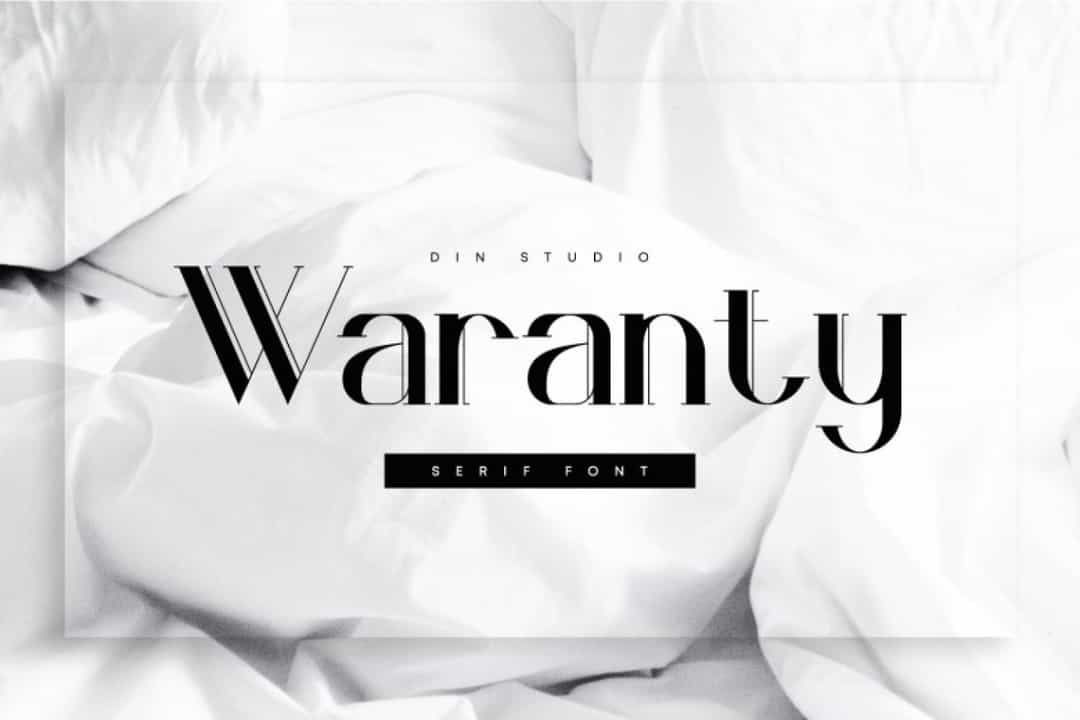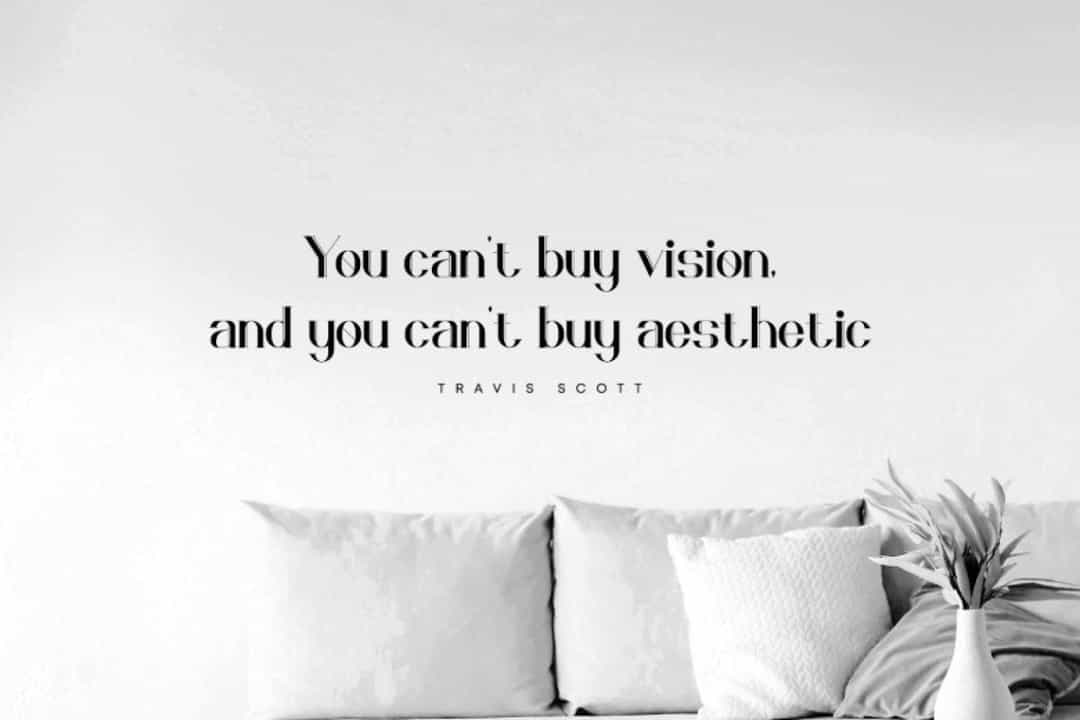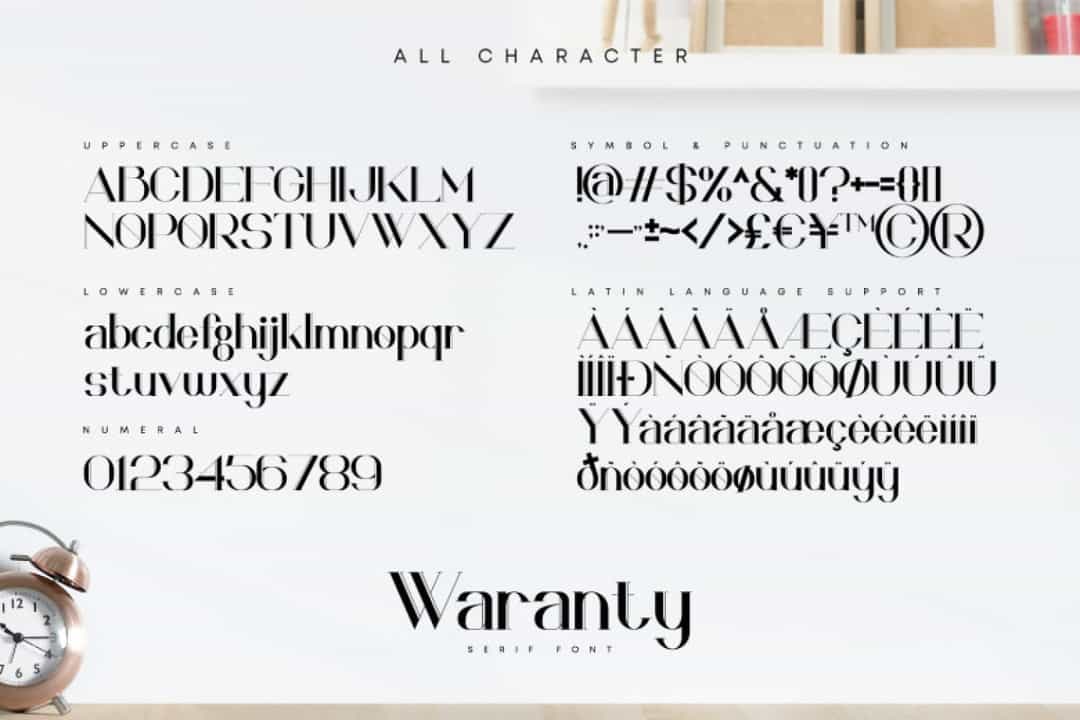
Waranty is an exquisite serif font designed for headlines requiring emphasis, formal documents, branding logos and quotes. Each letter boasts its own individual beauty!